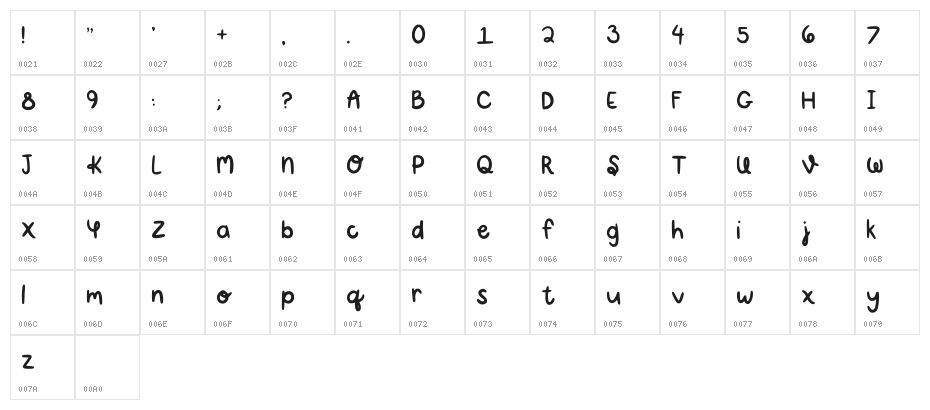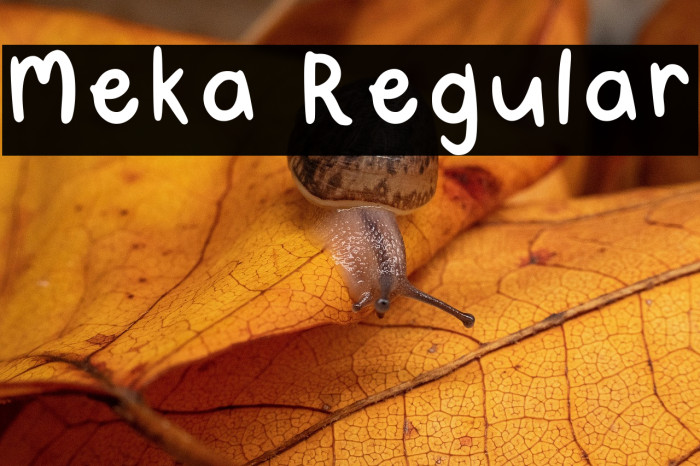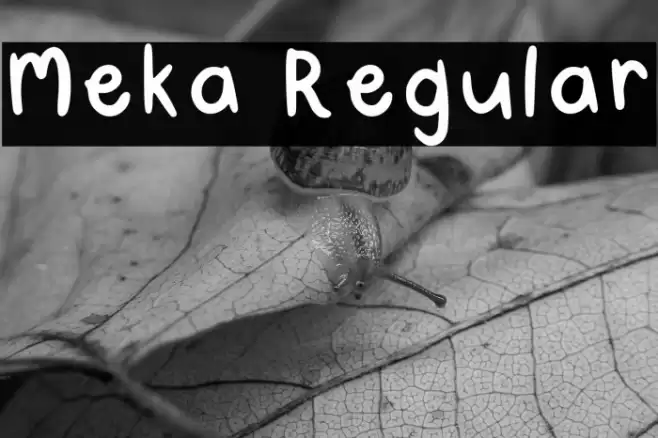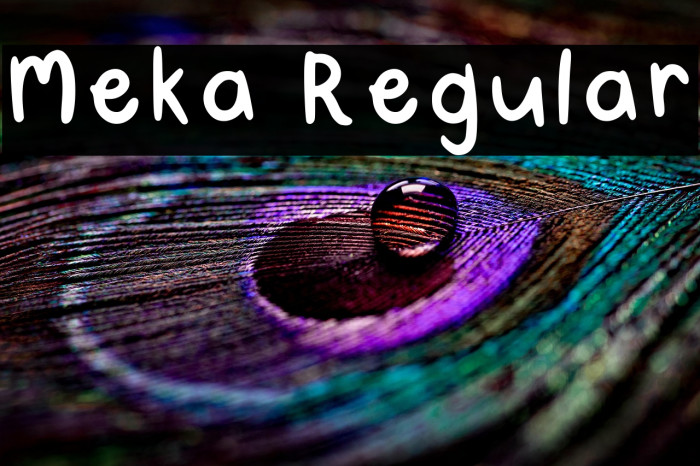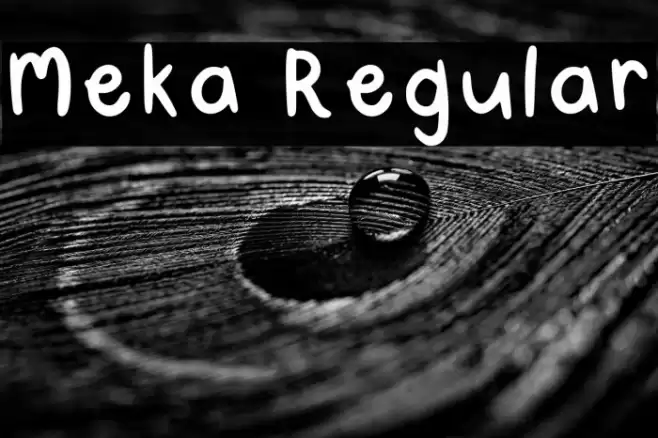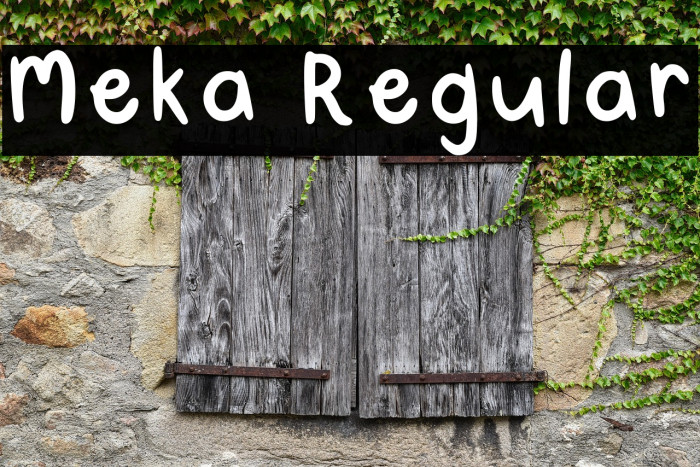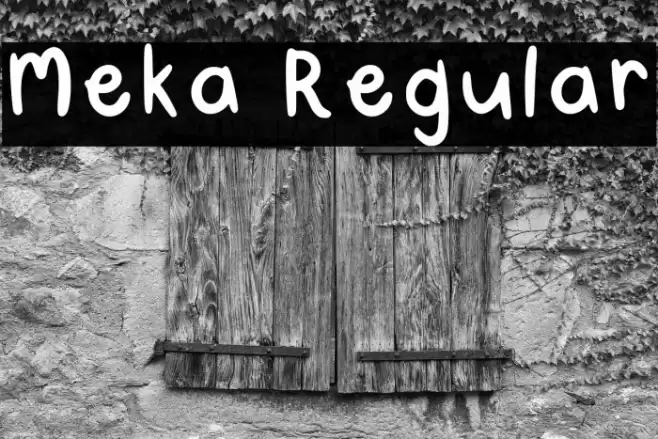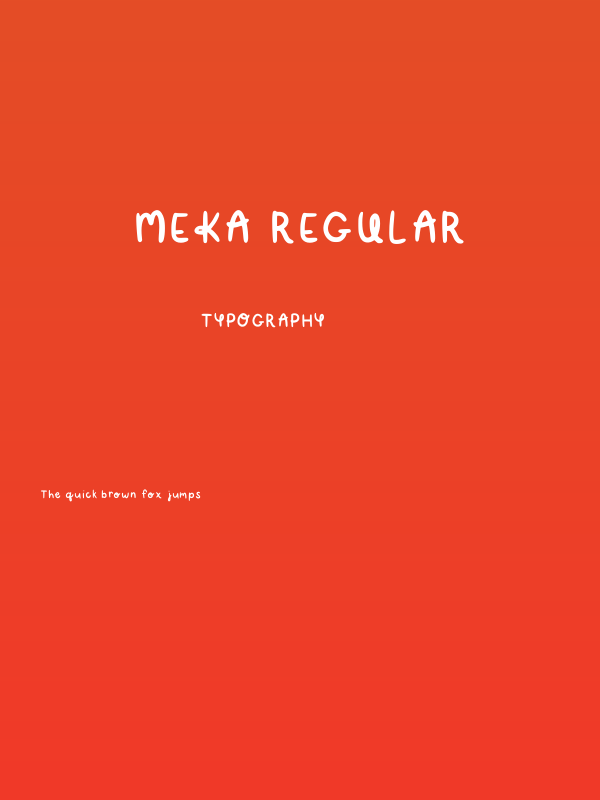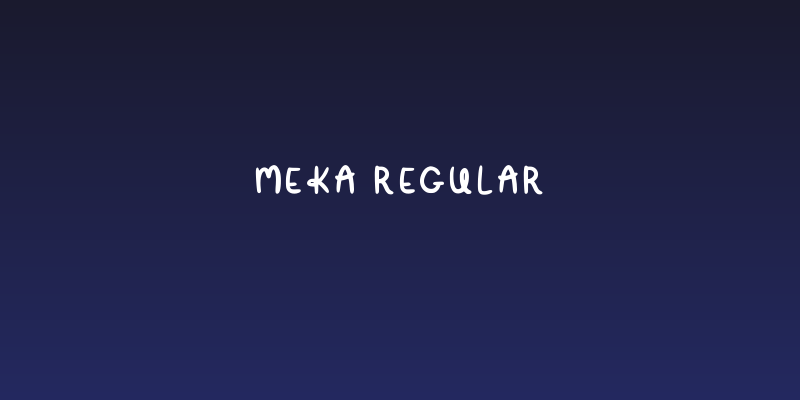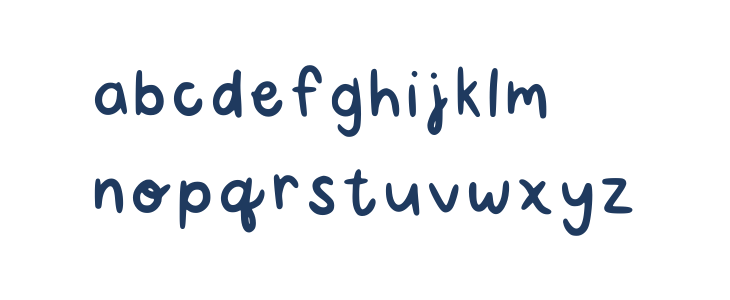
Meka Regular Font
Meka Regular Description
This font features a playful and casual handwritten style, characterized by its rounded and slightly irregular letterforms. The strokes are consistent in width, giving it a uniform appearance while maintaining a friendly and approachable feel. The uppercase letters are bold and prominent, while the lowercase letters are more relaxed and flowing. The numbers and special characters maintain the same whimsical quality, making this font suitable for informal and creative projects. Its overall design is simple yet effective, capturing a sense of spontaneity and warmth.
| Proposed Projects | Ideal for children's books, greeting cards, informal invitations, and playful branding. |